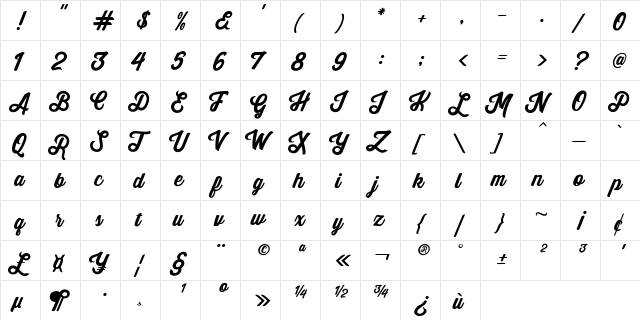
Yuko Regular
Design Context for Yuko Typeface
Yuko is a composed and adaptable typeface that performs quietly and consistently across a wide range of design contexts.